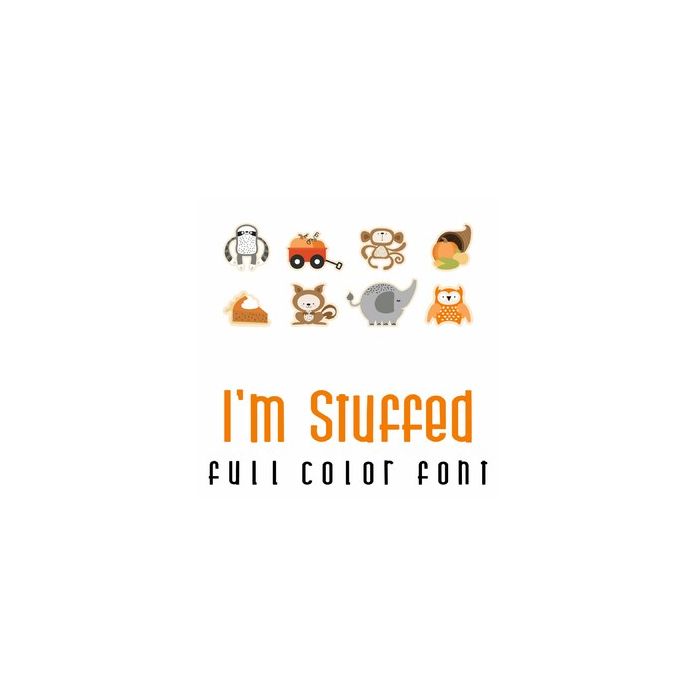
This fun full color doodlebat font features 26 Thanksgiving themed imagery of stitched styled animals and Thanksgiving bounty. Perfect for cards, crafts, gifts, decor, scrap book pages, planner stickers and more!